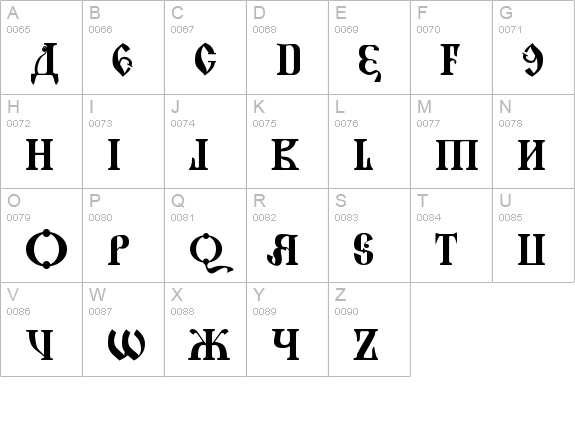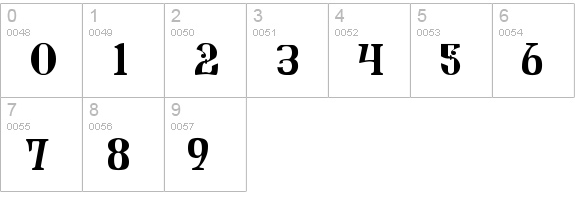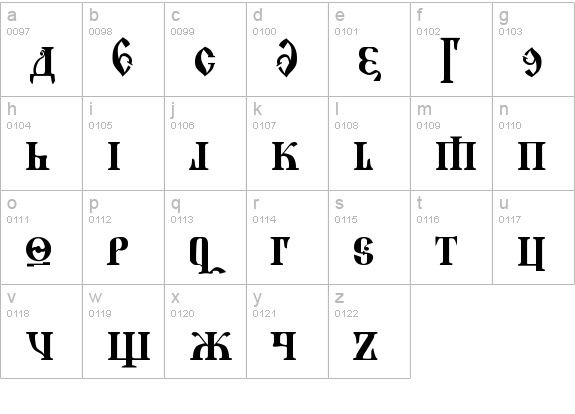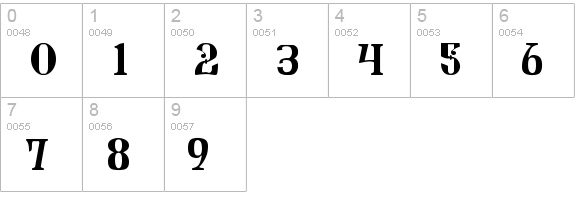
Introducing Kremlin Grand Duke, a majestic and regal font that exudes elegance and sophistication. With its intricate details and bold strokes, this typeface commands attention and makes a statement like no other. Inspired by the grandeur of the Kremlin, one of the most iconic landmarks in Russia, this font embodies the opulence and power associated with nobility. Kremlin Grand Duke effortlessly combines classic and modern elements, resulting in a unique and timeless design. Its graceful curves and sharp serifs create a harmonious balance, making it suitable for a wide range of creative projects. Whether you're designing invitations for a luxurious event, crafting a logo for a prestigious brand, or simply looking to elevate your designs with a touch of grandeur, this font is a perfect choice. One of the most remarkable aspects of Kremlin Grand Duke is that it is freely available to download at FontsMarket.com. This means that you can access this extraordinary font without any cost, making it an invaluable addition to your font collection. Its availability ensures that everyone, regardless of budget constraints, can enjoy the beauty and versatility of this magnificent typeface. With its generous character set, Kremlin Grand Duke supports multiple languages, allowing you to effortlessly communicate your message across different cultures and regions. Its high legibility ensures that your text is easily readable, even at smaller sizes, making it suitable for both print and digital applications. Unleash your creativity with Kremlin Grand Duke and experience the power of this font to captivate and inspire. Whether you're a graphic designer, a typographer, or simply a lover of beautiful typography, this font will undoubtedly leave a lasting impression. Download Kremlin Grand Duke for free today at FontsMarket.com and unlock a world of possibilities for your design projects.